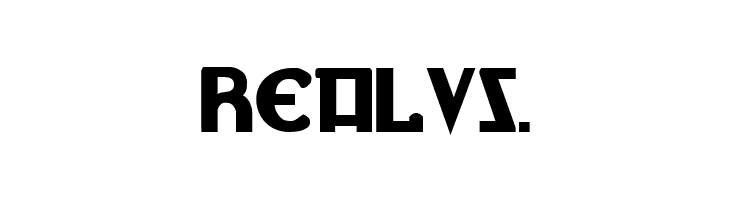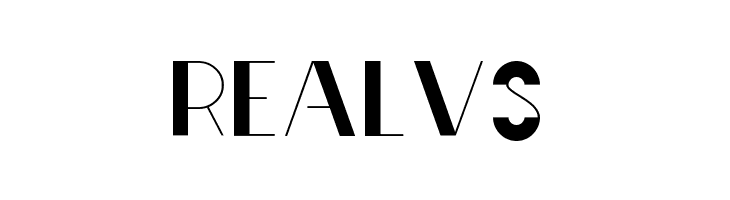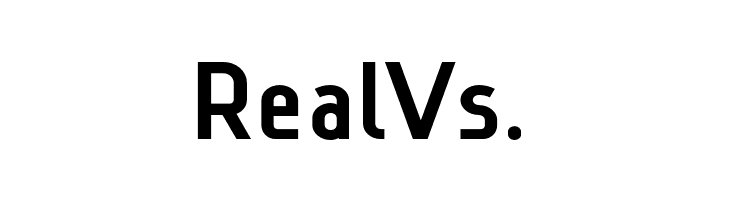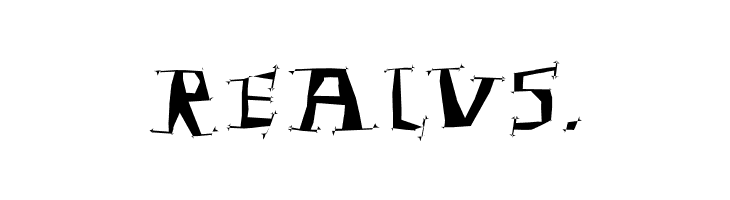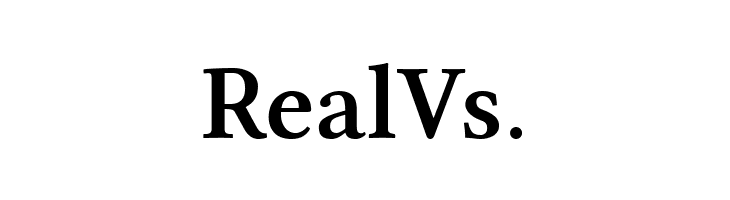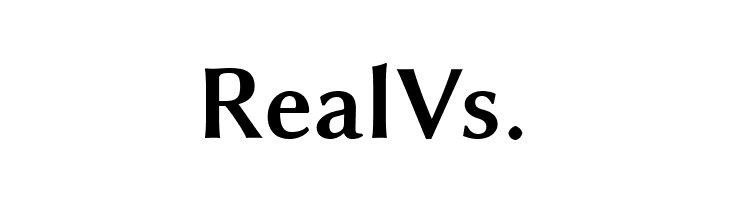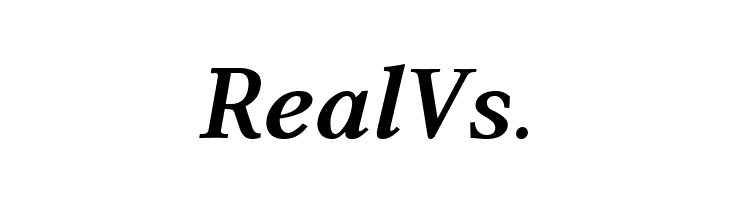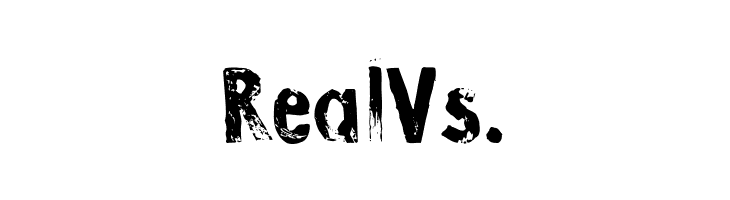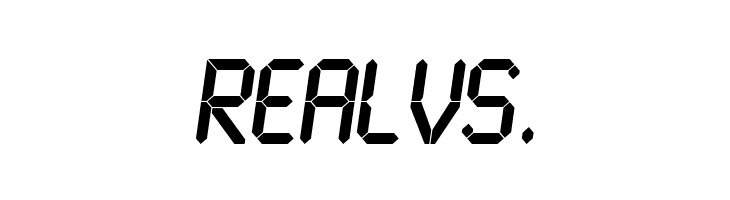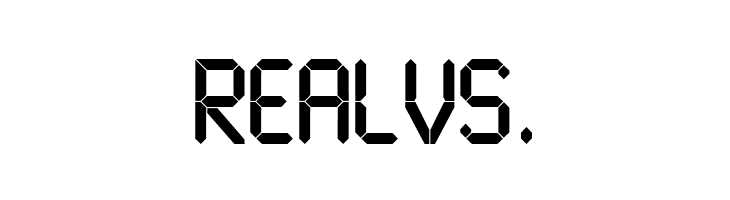
A bold, condensed font with a geometric and modern design.
A bold, angular font with high contrast and geometric shapes, ideal for impactful headlines.
A bold, playful handwritten font with dynamic strokes and a casual feel.
A bold, geometric sans-serif font with high contrast and unique cutouts.
A minimalist, line-based font with a geometric and modern style.
A bold, geometric font with a modern, digital aesthetic.
A bold, geometric stencil font with a modern industrial style.
A bold serif font with strong, authoritative strokes and classic design.
A bold, italicized font with strong, elegant characters.
A bold, modern sans-serif font with clean lines and geometric shapes.
A bold, impactful typeface with a strong, modern presence.
A bold, distressed font with a linocut print style.
A bold, angular font with sharp, jagged edges and a dynamic appearance.
A bold, distressed font with a grunge aesthetic.
A bold serif font with a classic and elegant style.
A bold, modern outline font with a clean and structured design.
Bold, shadowed serif font with a three-dimensional effect.
A bold, slanted, and modern font with elegant curves and strong presence.
A bold, classic serif font with strong, authoritative strokes.
A bold, slanted serif font with classic elegance and moderate contrast.
A bold, geometric font with unique angular cuts and curves.
A segmented, digital-style font inspired by classic LCD displays.
A bold, italicized digital-style font with a segmented, geometric design.
A bold slab serif font with a modern yet vintage appeal, featuring thick serifs and geometric shapes.
A dynamic and flowing script font with elegant, connected letterforms.